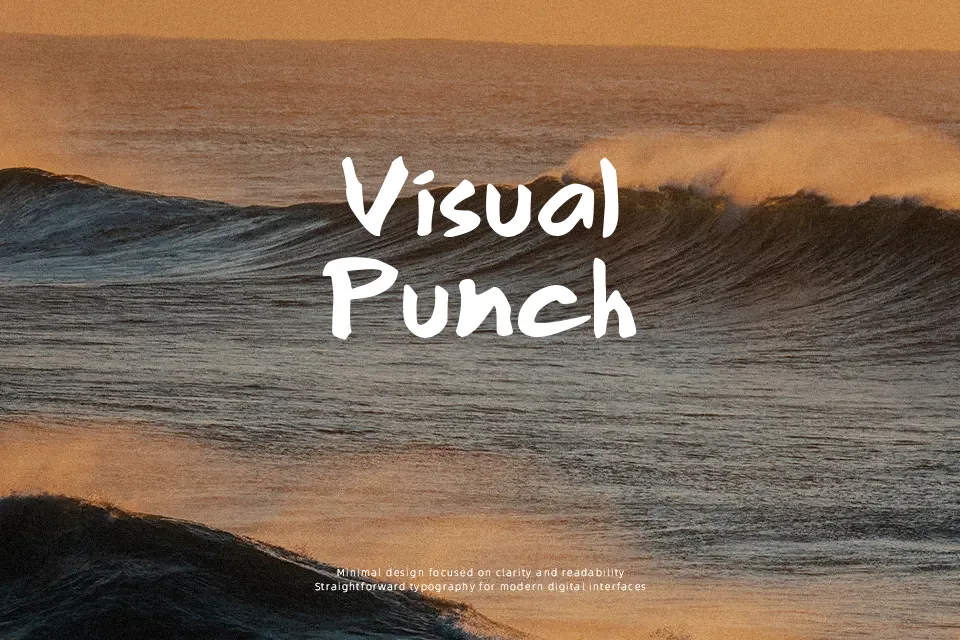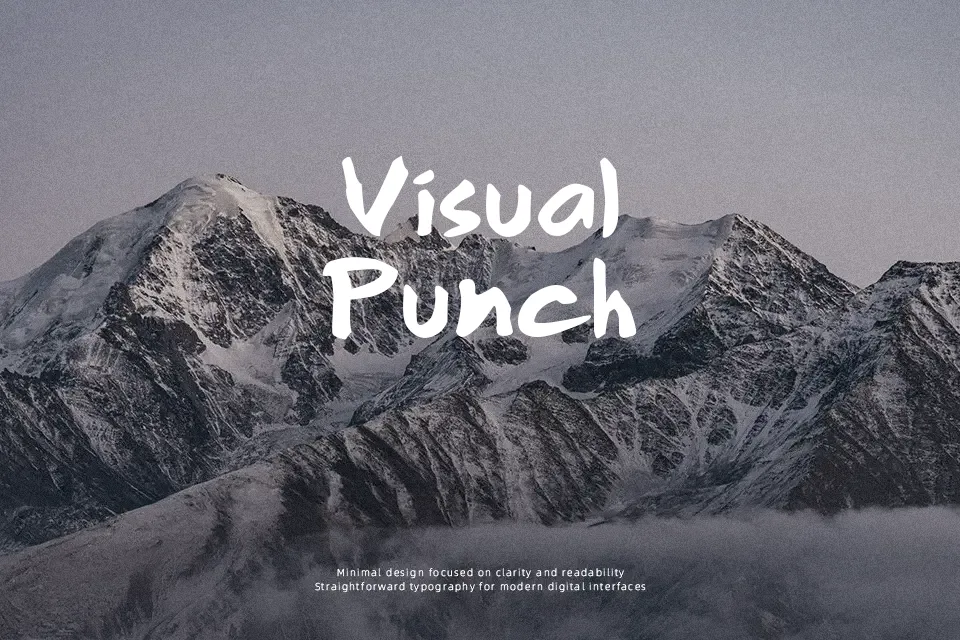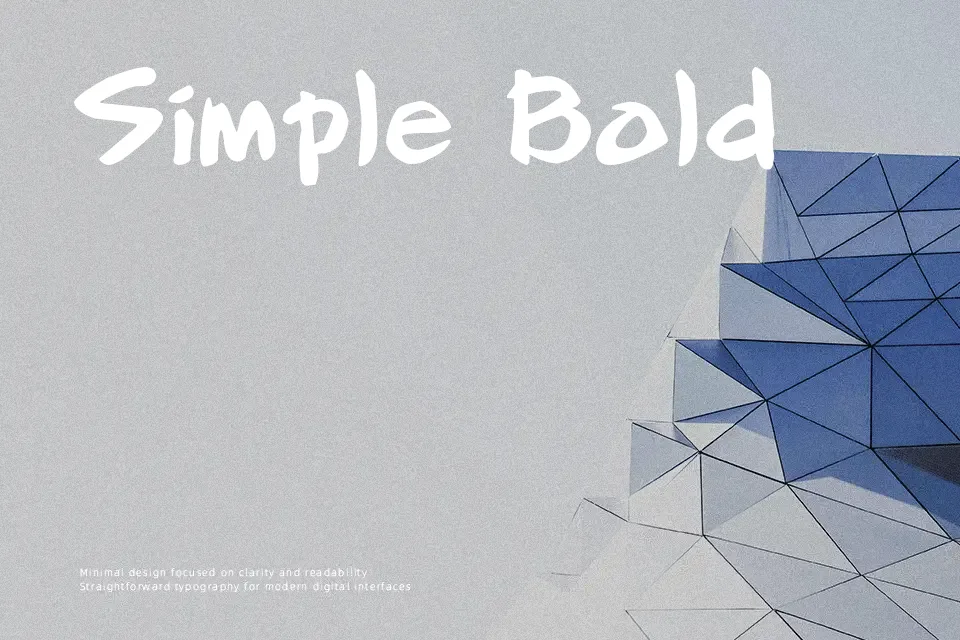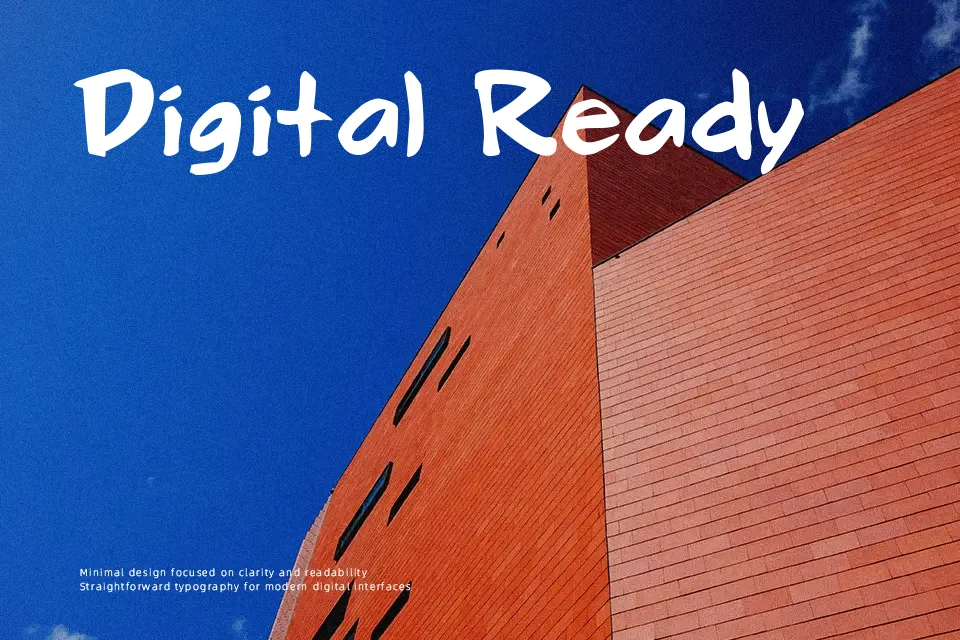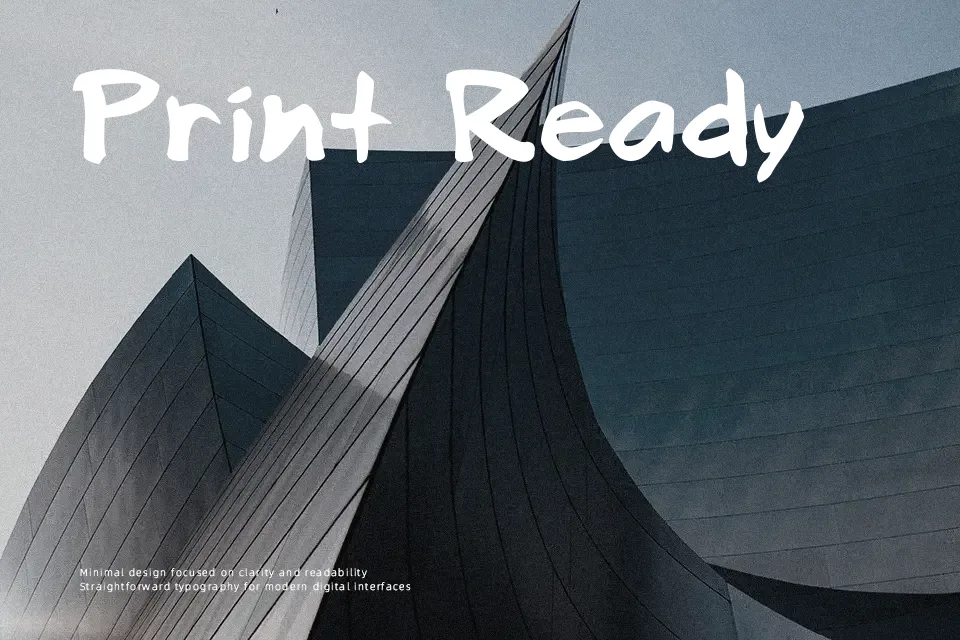
Smile Comix Font
Smile Comix Font features rounded strokes, open counters, and a lively hand-drawn structure designed for casual display lettering. The consistent stroke thickness and balanced character spacing ensure strong legibility across medium and large headline scales. In children’s book titles, animated video graphics, and packaging, the letterforms deliver an approachable, energetic presence that immediately engages viewers. However, the informal anatomy and wide apertures become less effective in continuous body copy, where dense blocks of text can fatigue the reader. For short comic dialogue balloons and promotional headers, the typeface offers dependable clarity and visual rhythm.
Best For: comic book dialogue, children’s storybook titles, animated video graphics, casual merchandise packaging
Not Ideal For: dense editorial paragraphs, corporate financial reports, formal legal documentation, small user interface captions
Perfect for headline, kids, and packaging, with a creative and cartoon style.